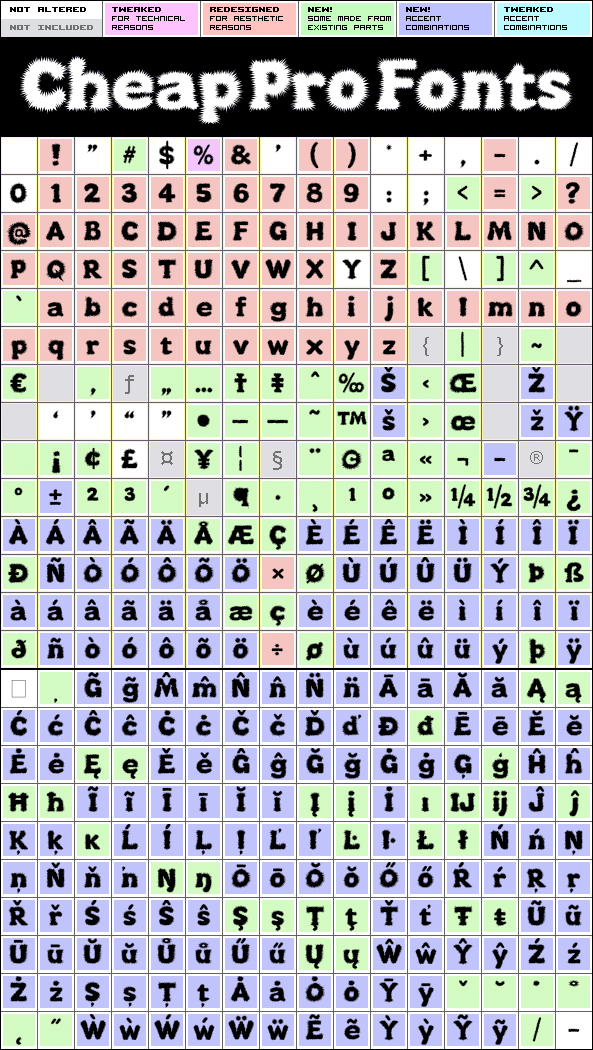
This is Kingthings Lupine Pro with eyes, decorations and stray hairs removed. Which leaves just a very usable fuzzy font for your monster-related headline. :) Kevin King says: "I love fantasy writing and my favourite author is Terry Pratchett. In Reaper man, my favourite book, there is a werewolf character called Lupine, I wanted to make a font for him and for Ludmilla... It's a long story, it's a hairy font."
Kingthings Lupineless Pro is a professionally reworked font that contains an extended character set for setting text in 65 languages requiring more than the basic A-Z!